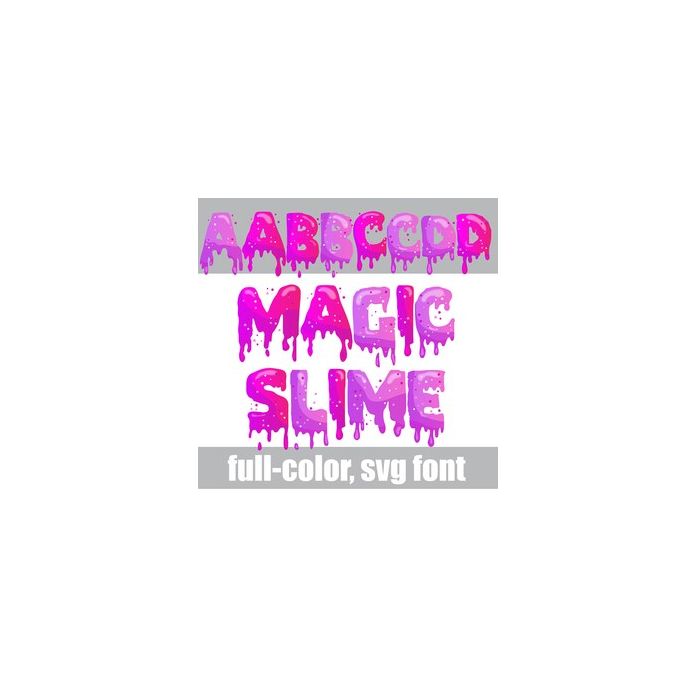
This full-color font feature pink/purple slime filled with sparkles. There is an alt case w/ additional colors you can access through your system or Silhouette's glyph map.